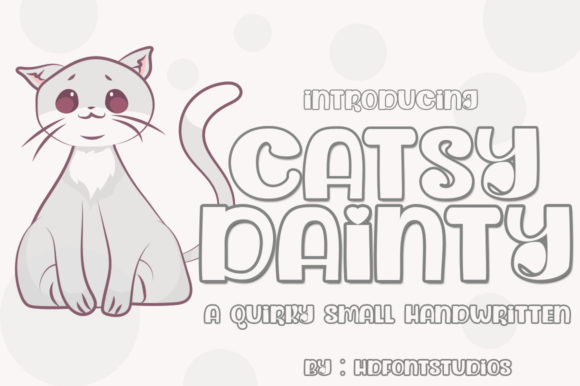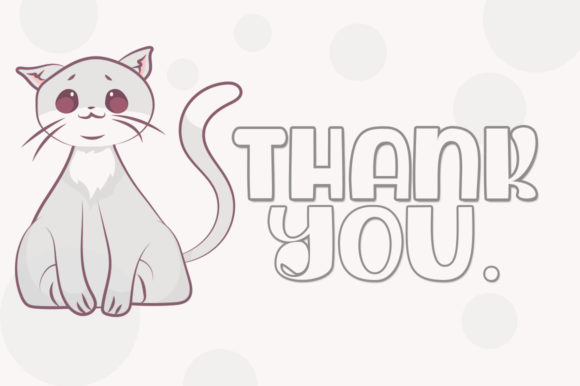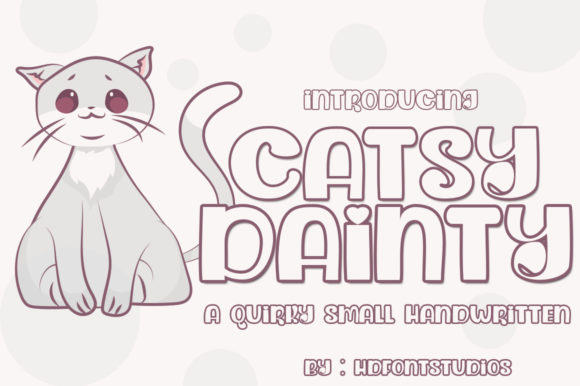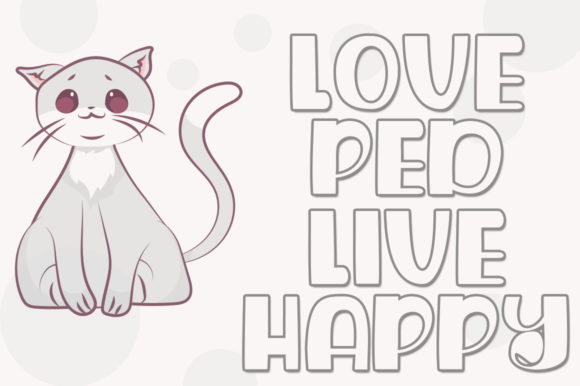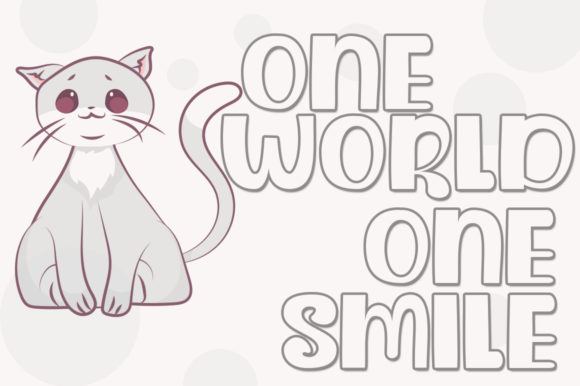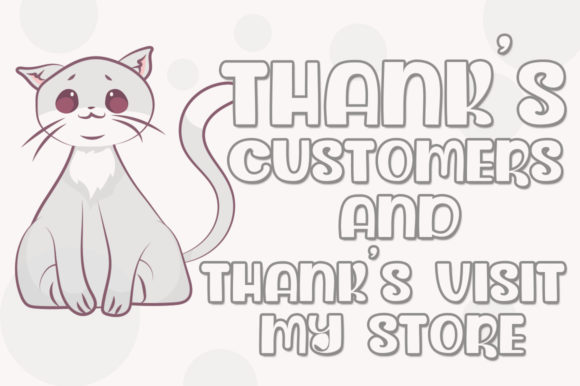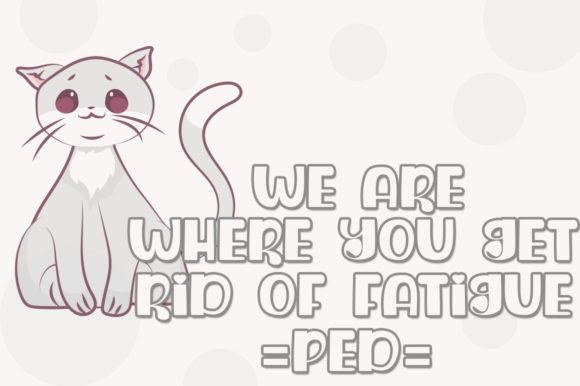
Dainty Catsy Font
Dainty Catsy is cute and playful, but also elegant. This versatile script font has a wide range of applications ranging from greeting cards to headlines and is guaranteed to add a whimsical touch to your next design.